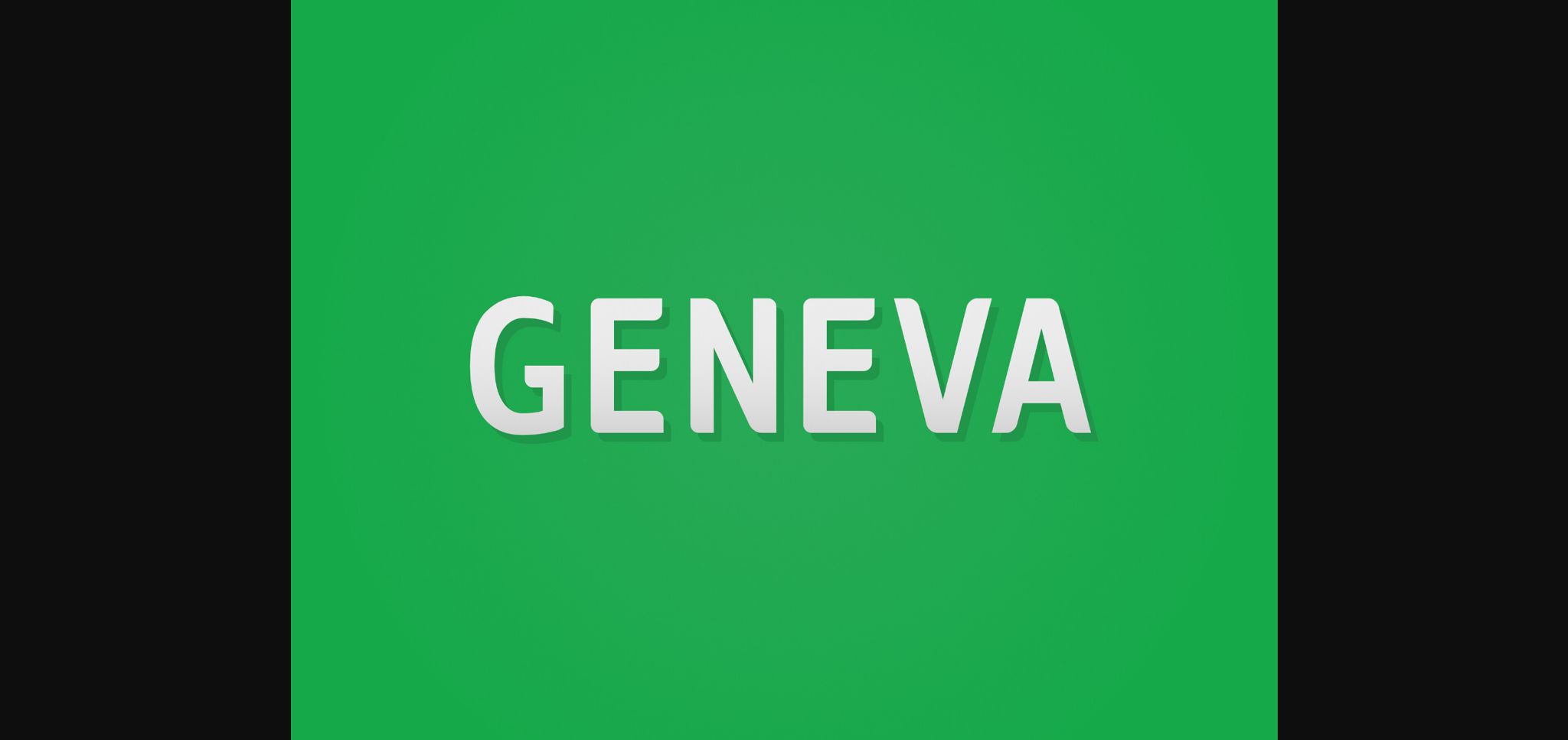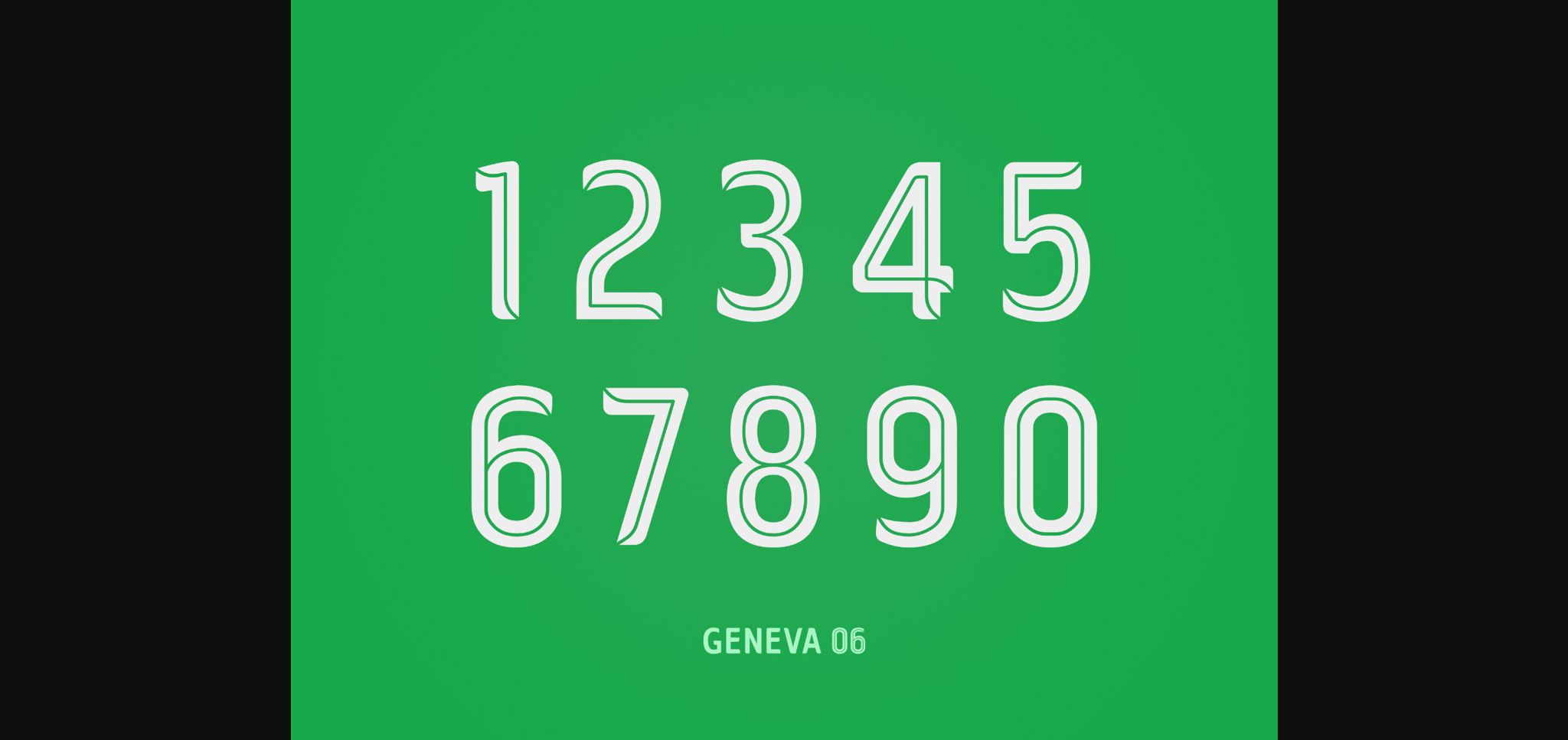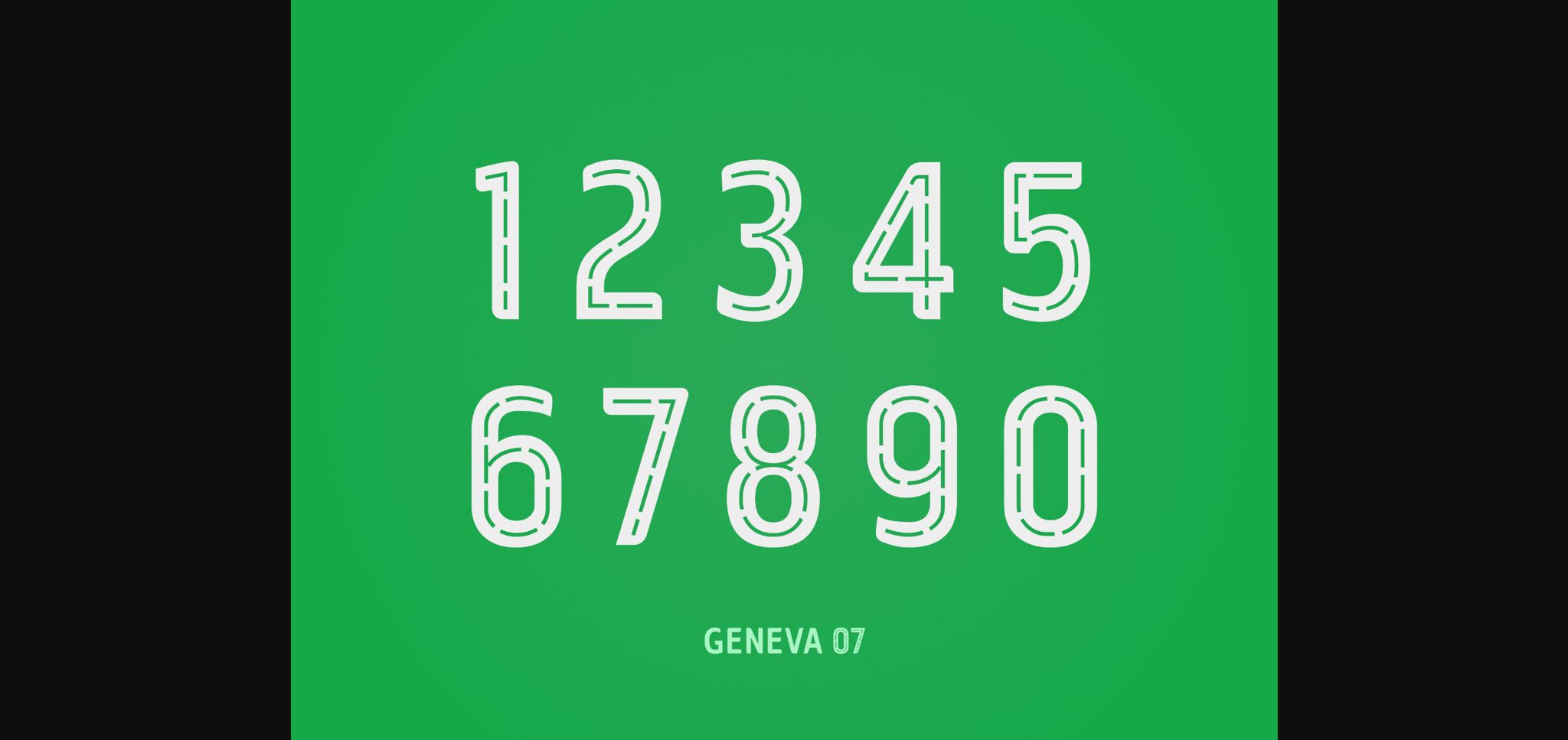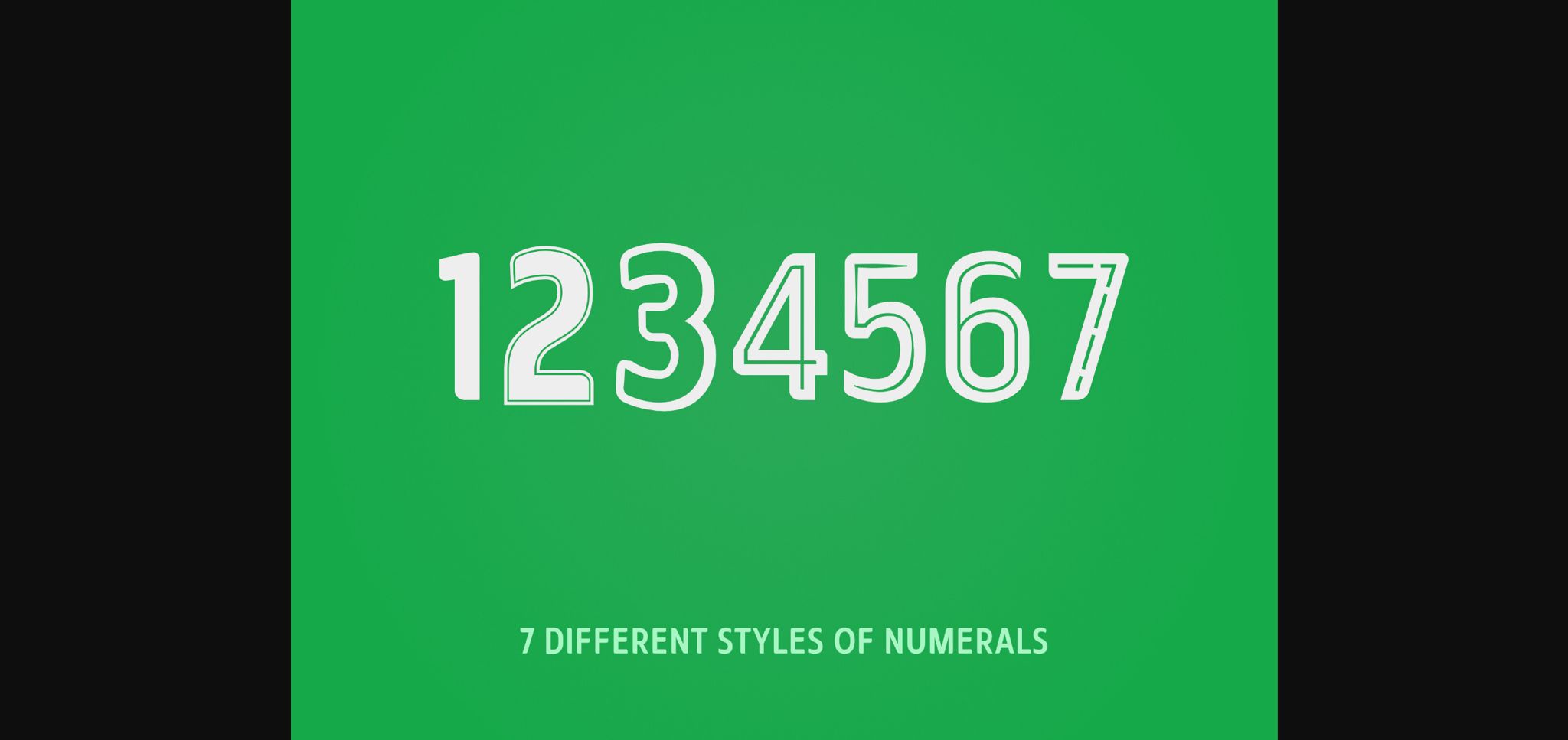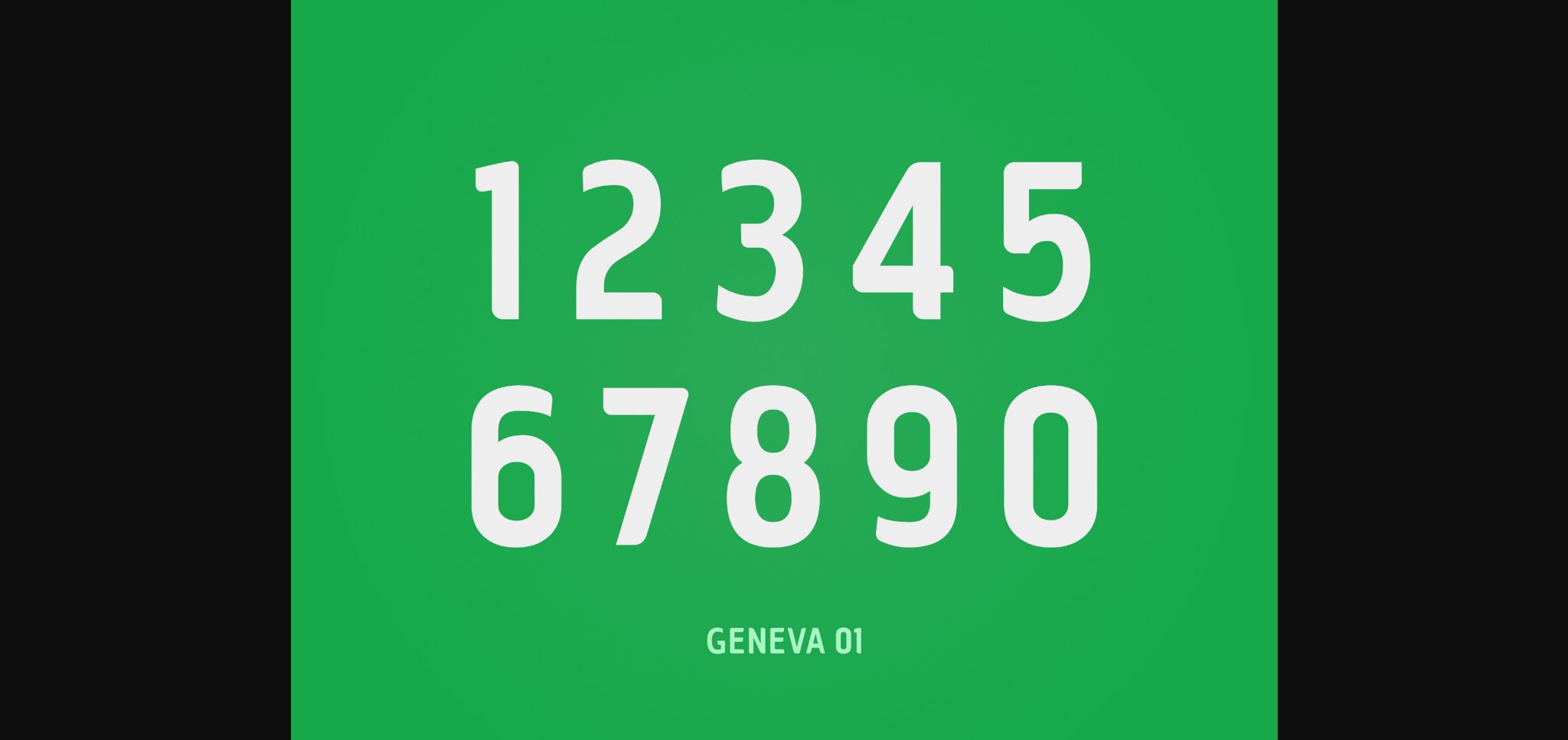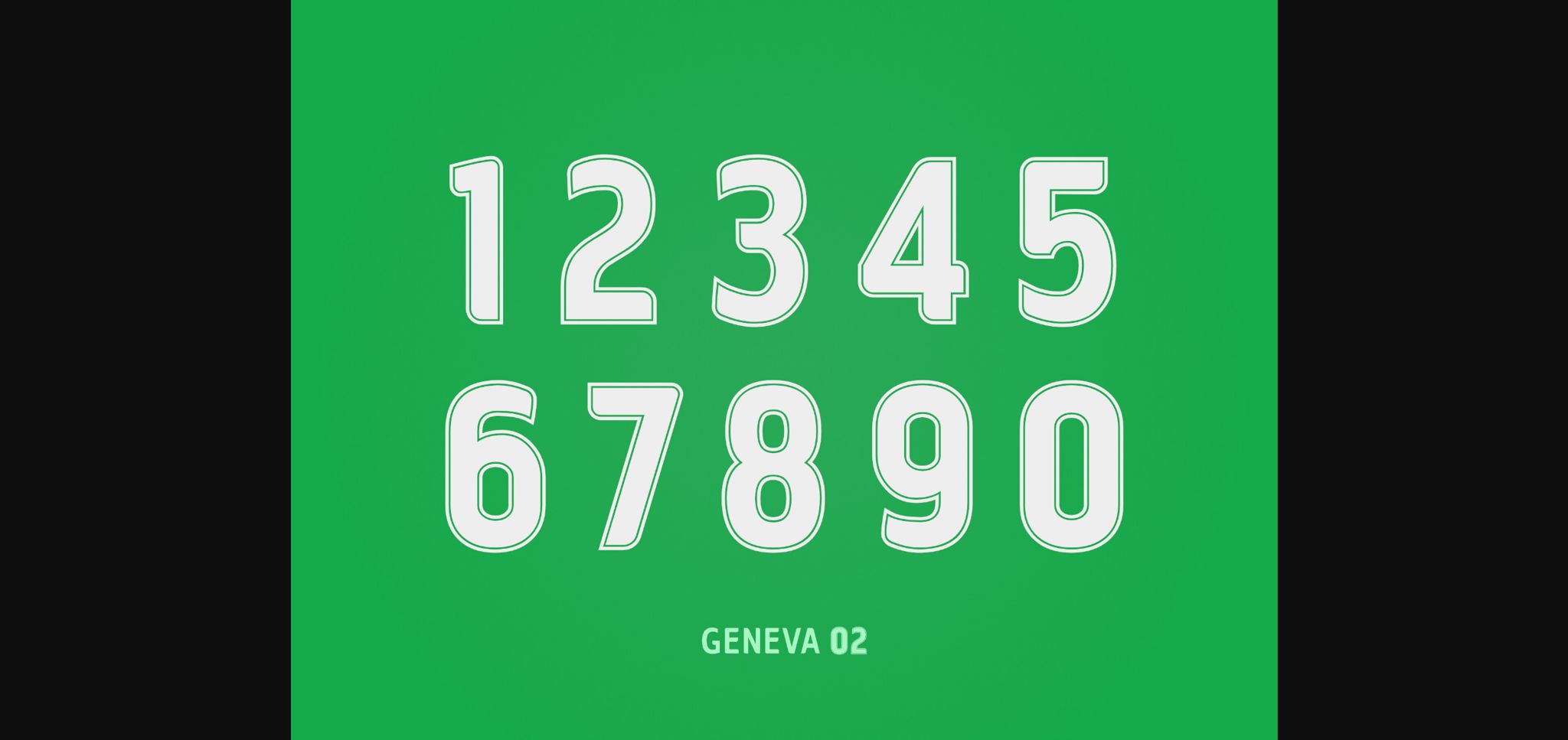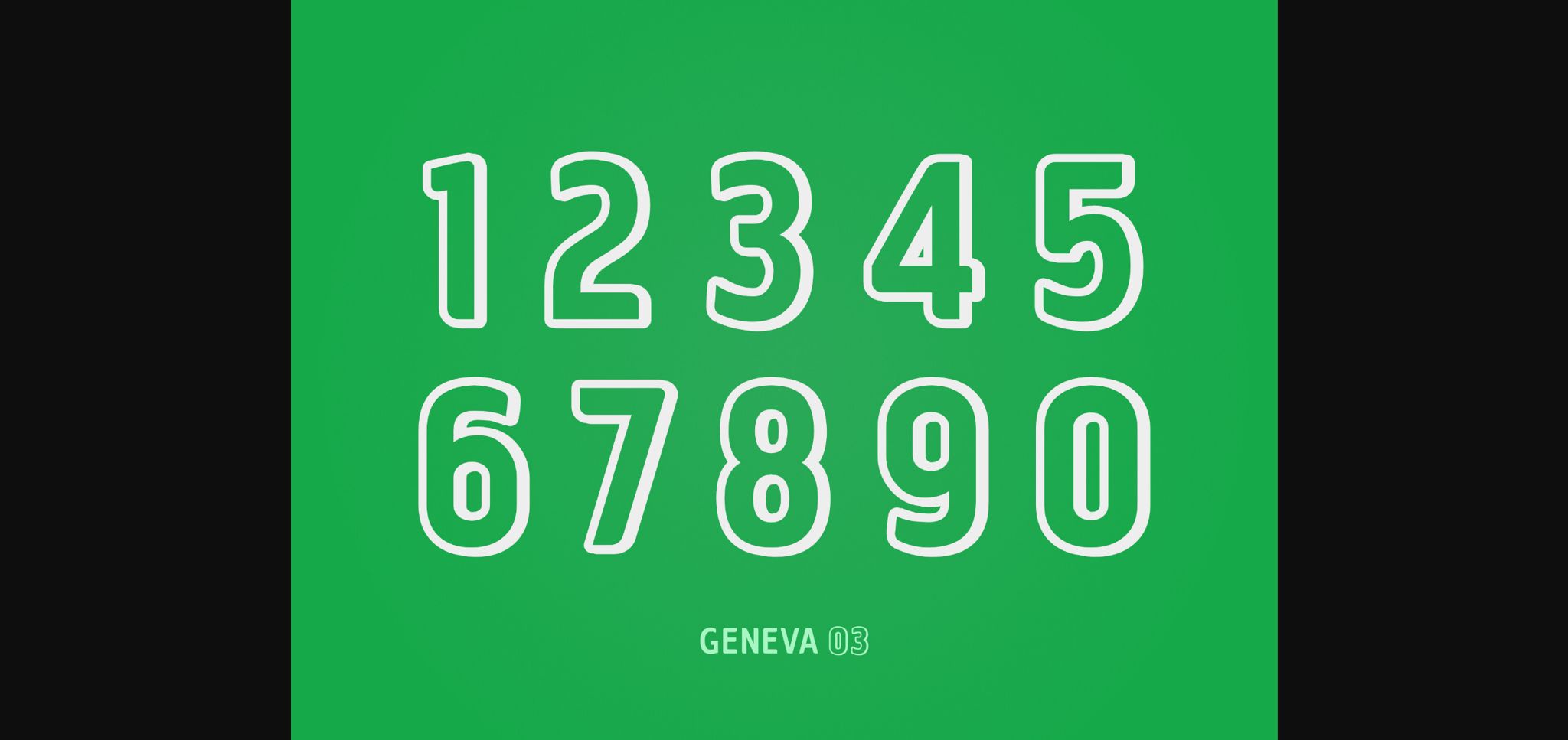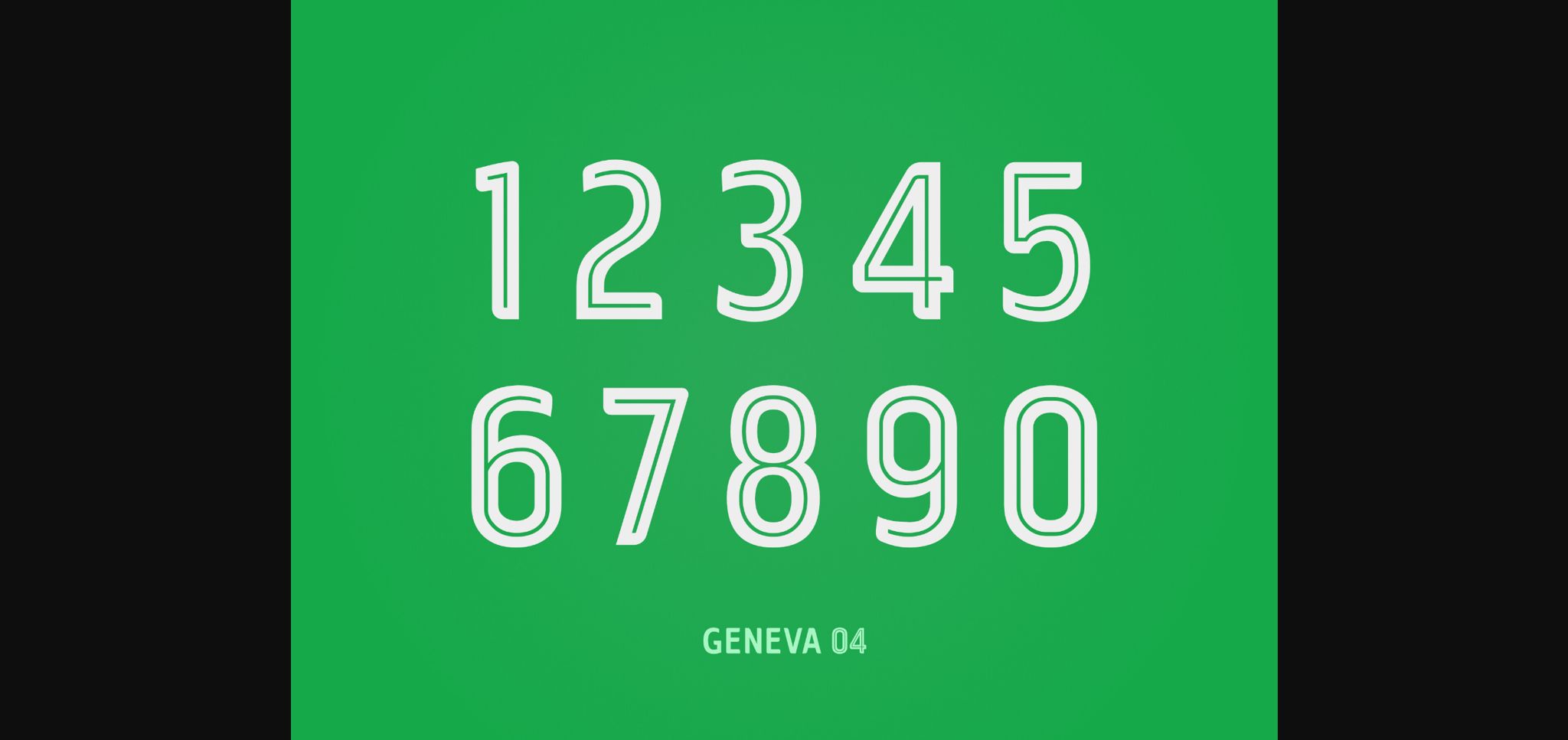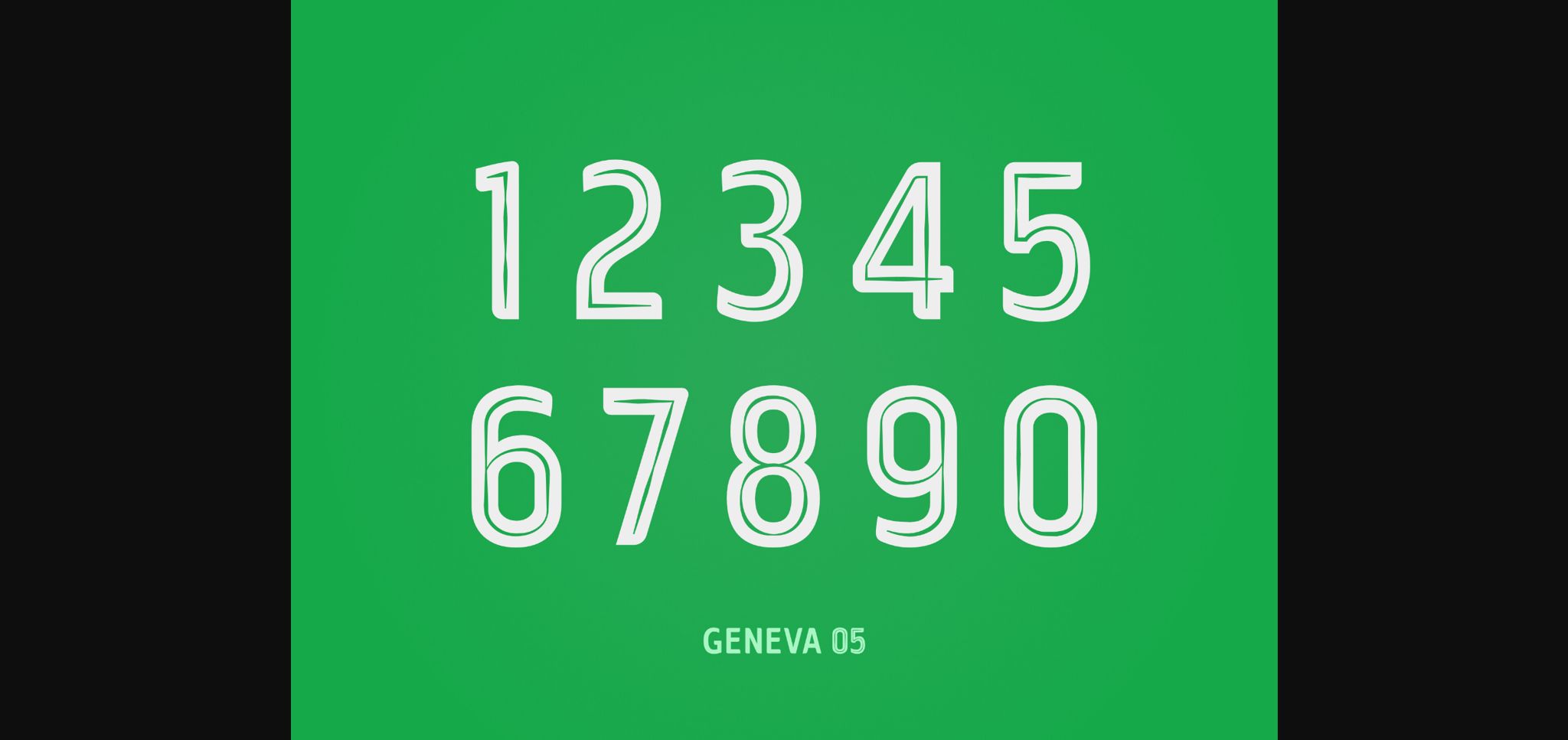
Geneva Font
About Geneva Font
Geneva is a font family with 7 different styles of numerals.
Geneva is made for football/soccer/other sports jersey name and number.
Even though it is made for sports, with a san serif typeface as a base character,
Geneva is also great for other design purposes.